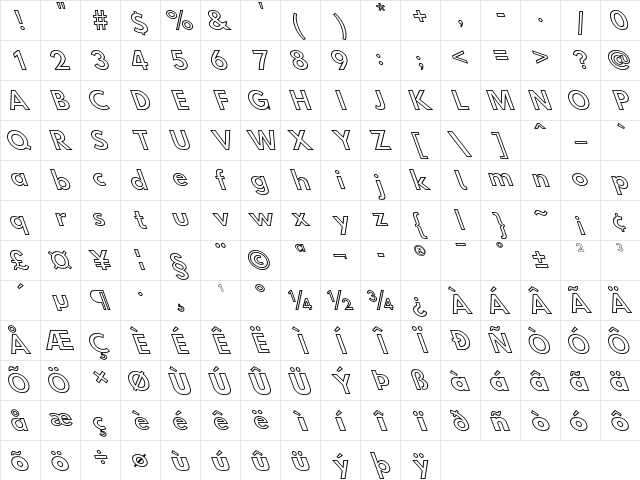
Hussar Simple GhoOpObl3
Design Context for Hussar Simple Typeface
Hussar Simple takes a measured approach to typography — its balanced proportions and neutral character make it a reliable workhorse for both digital and print work.
Pro Tip: Use Hussar Simple in both headline and body roles to test its range before committing to a single application.